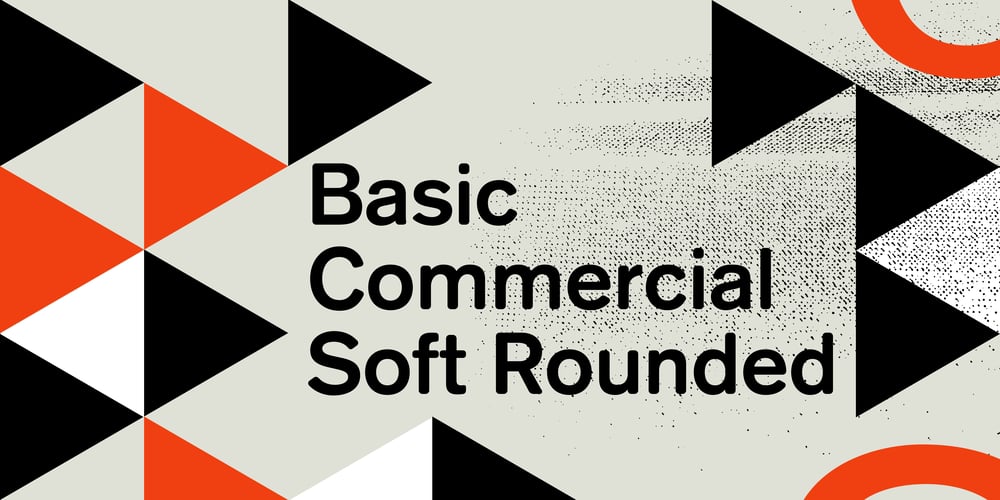
Basic Commercial Soft Rounded Font Family was designed by Linotype Design Studio and published by Linotype. Basic Commercial Soft Rounded contains 3 styles and family package options. Basic Commercial is a font based on historical designs from the hot metal typeface era. It first appeared around 1900, and was created by type designers whose names have not been recorded but whose skills cannot be overlooked. This typeface’s design has been popular among groups and movements as diverse as the Bauhaus, Dadaism, and the masters of Swiss/International-Style typography. It influenced for a variety of later grotesque fonts, such as Helvetica and Univers.Basic Commercial was distributed for many years in the United States under the name Standard Series. The typeface worked its way into many aspects of daily life and culture; for instance, it became the face chosen for use in the New York City subway system’s signage.The Basic Commercial’s font family members have a clear and objective design. Their forms exhibit almost nothing unusual, but remain both lively and legible nonetheless. Perhaps for this reason, Basic Commercial’s design has been popular with graphic designers for decades. To read more about the history of typefaces like Basic Commercial, visit our font feature, The Sans Serif Typefaces. In addition several weights of this typefamily are available as soft rounded versions.”